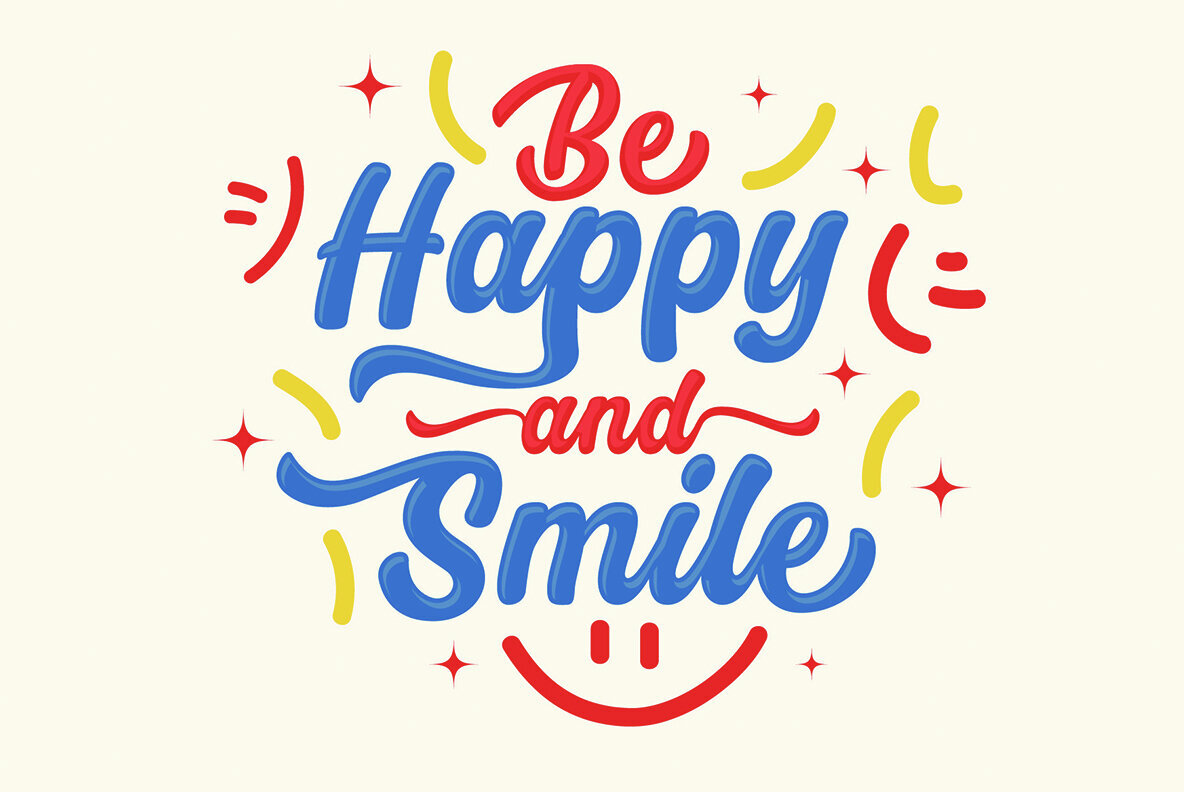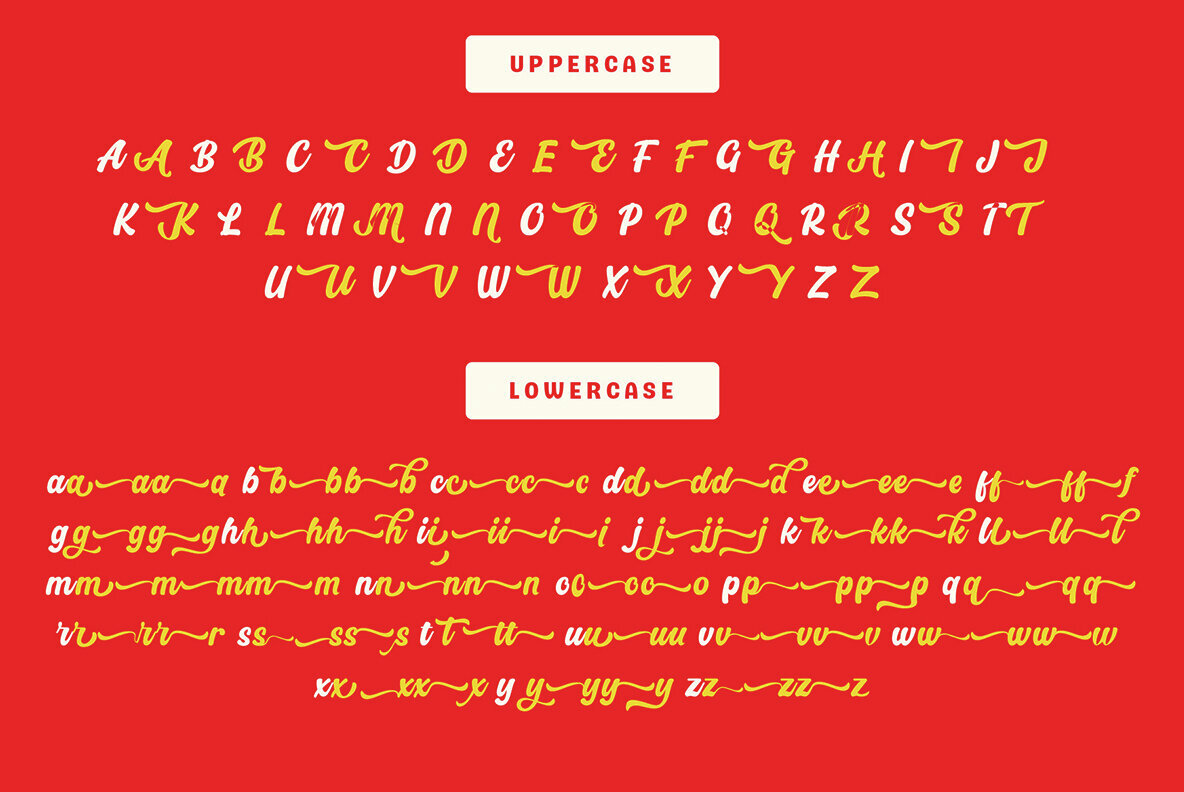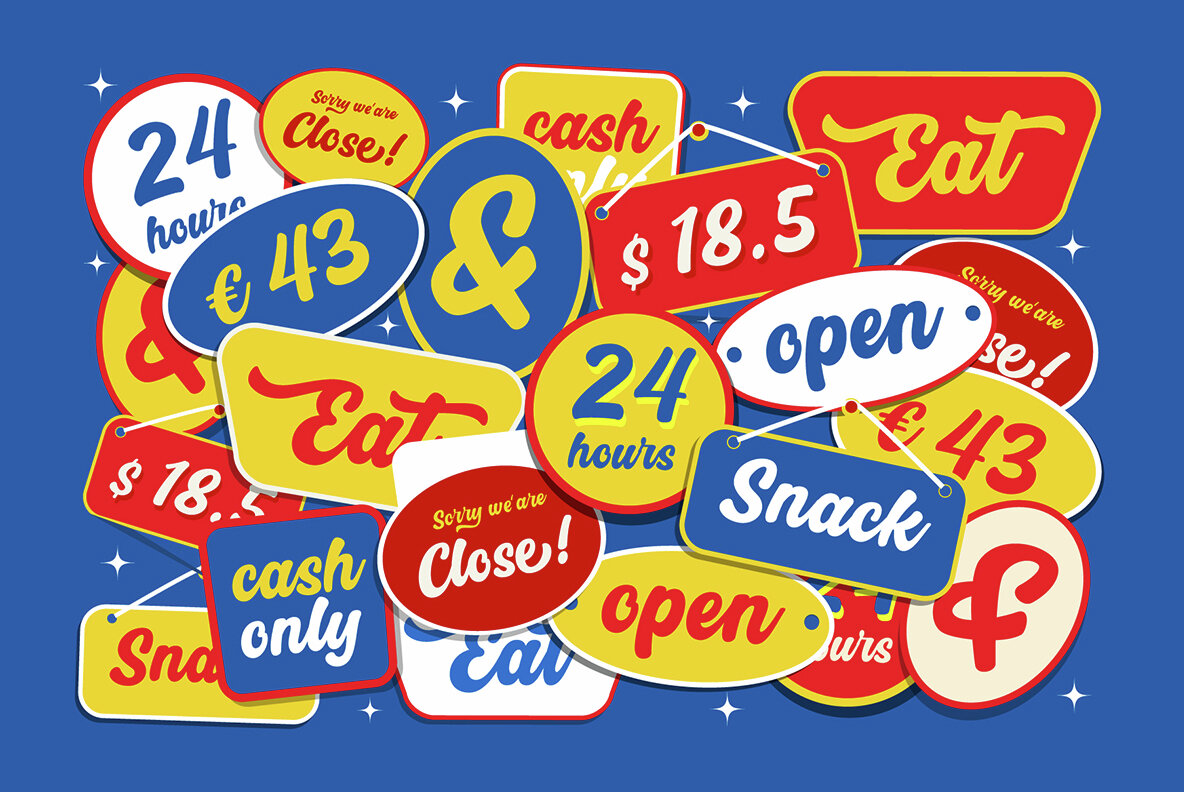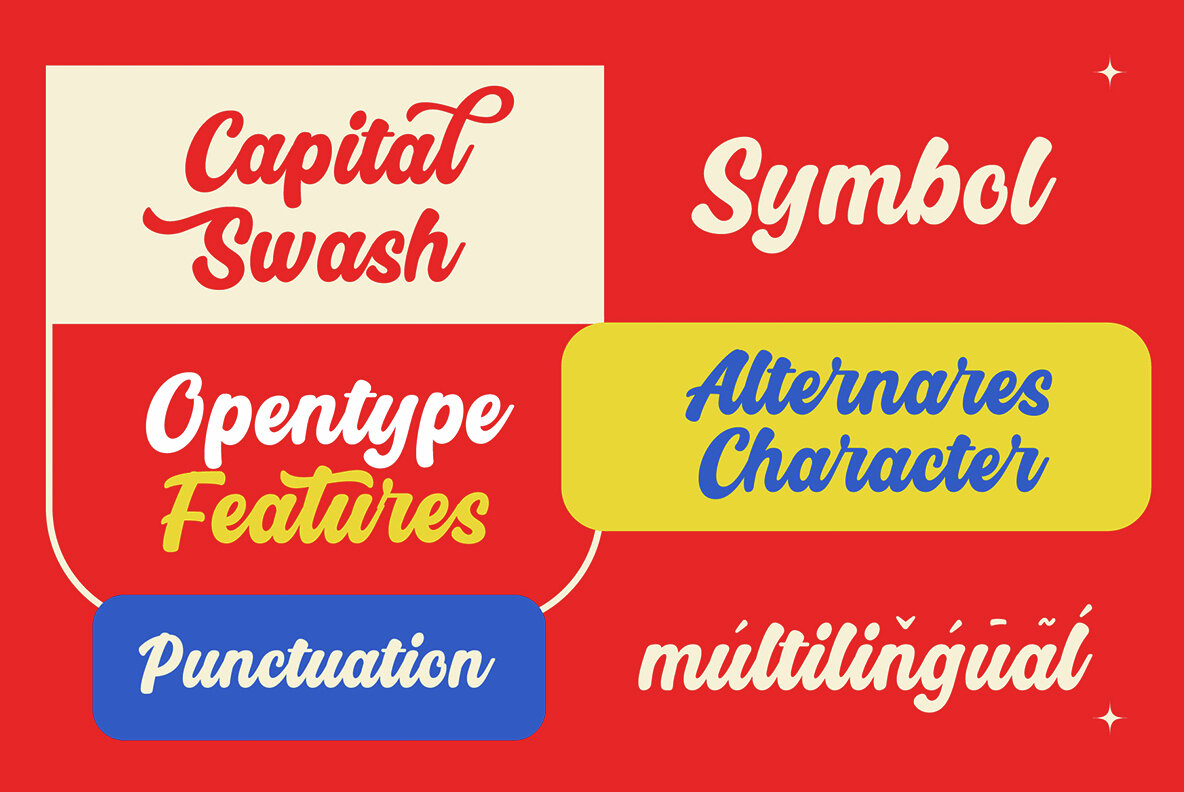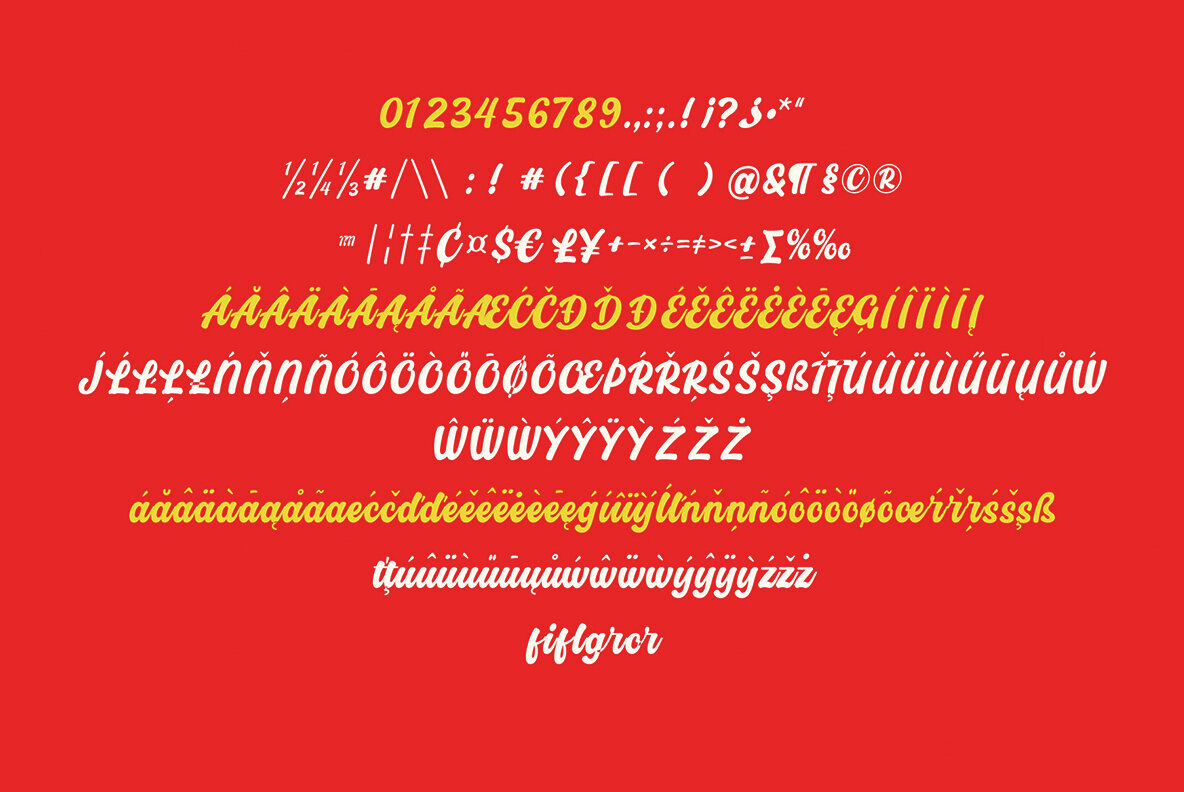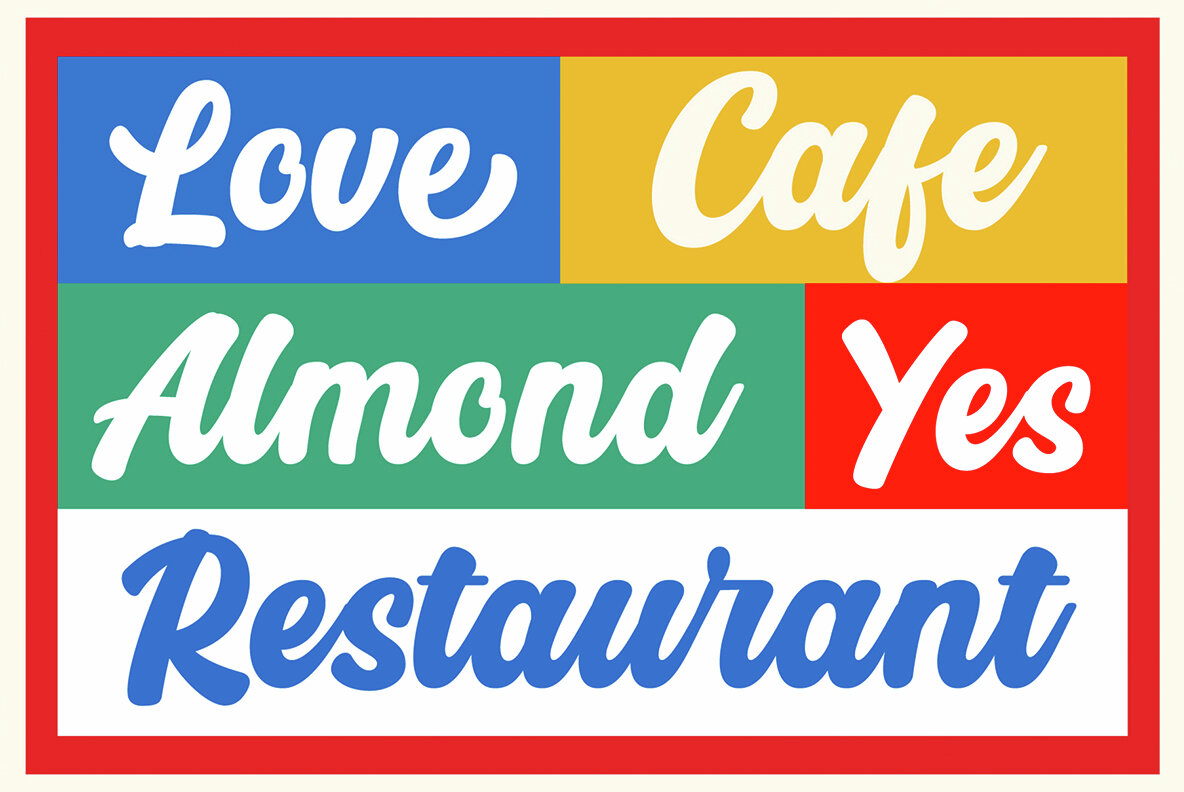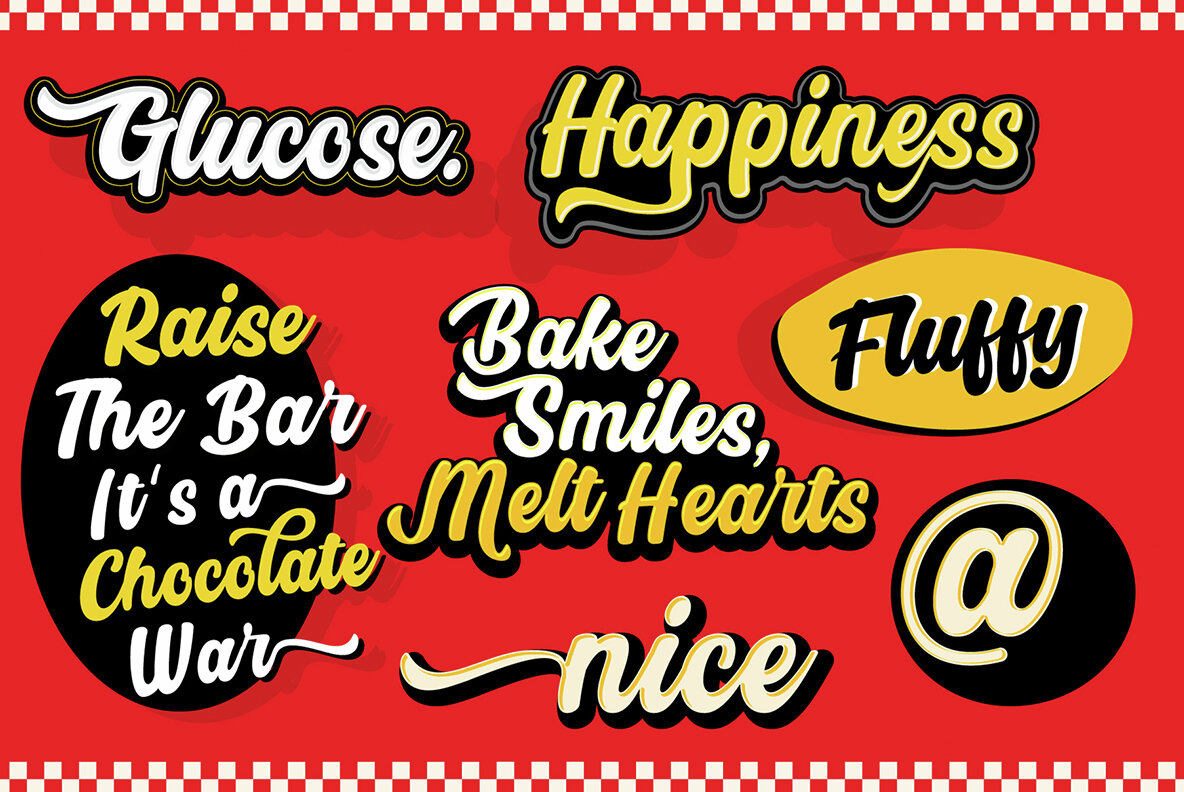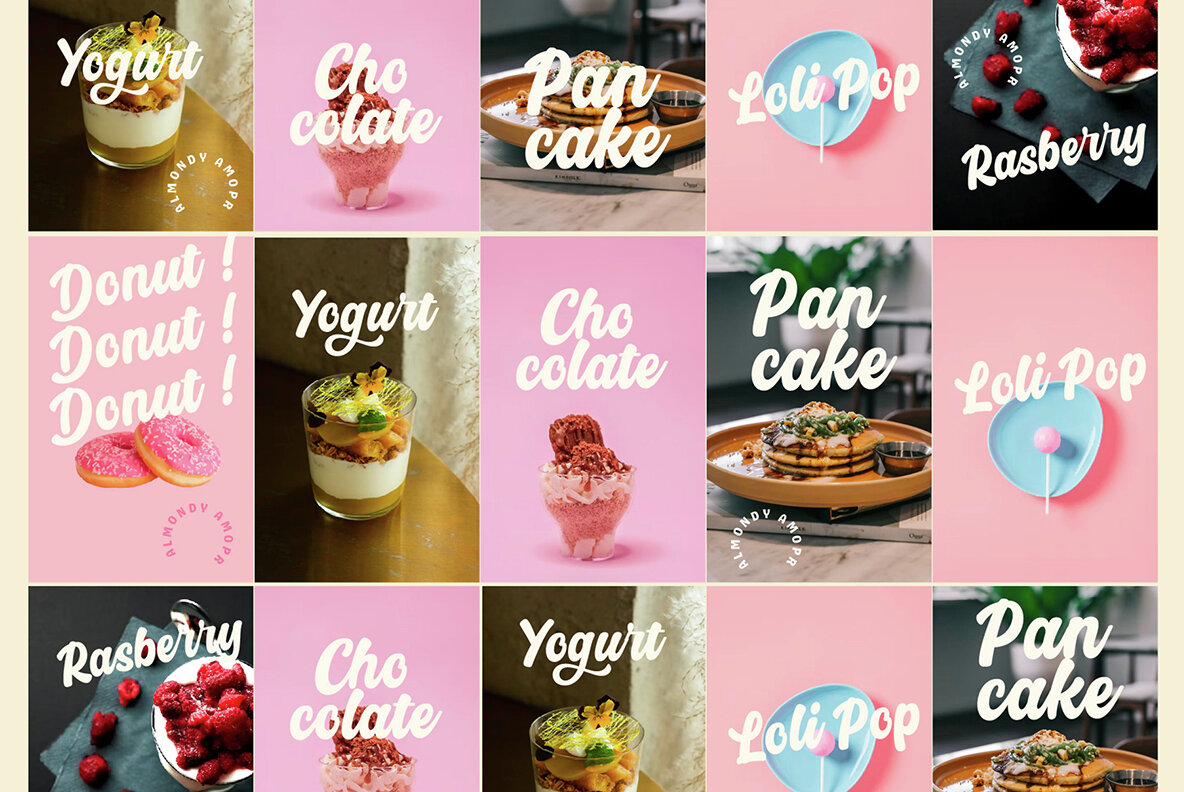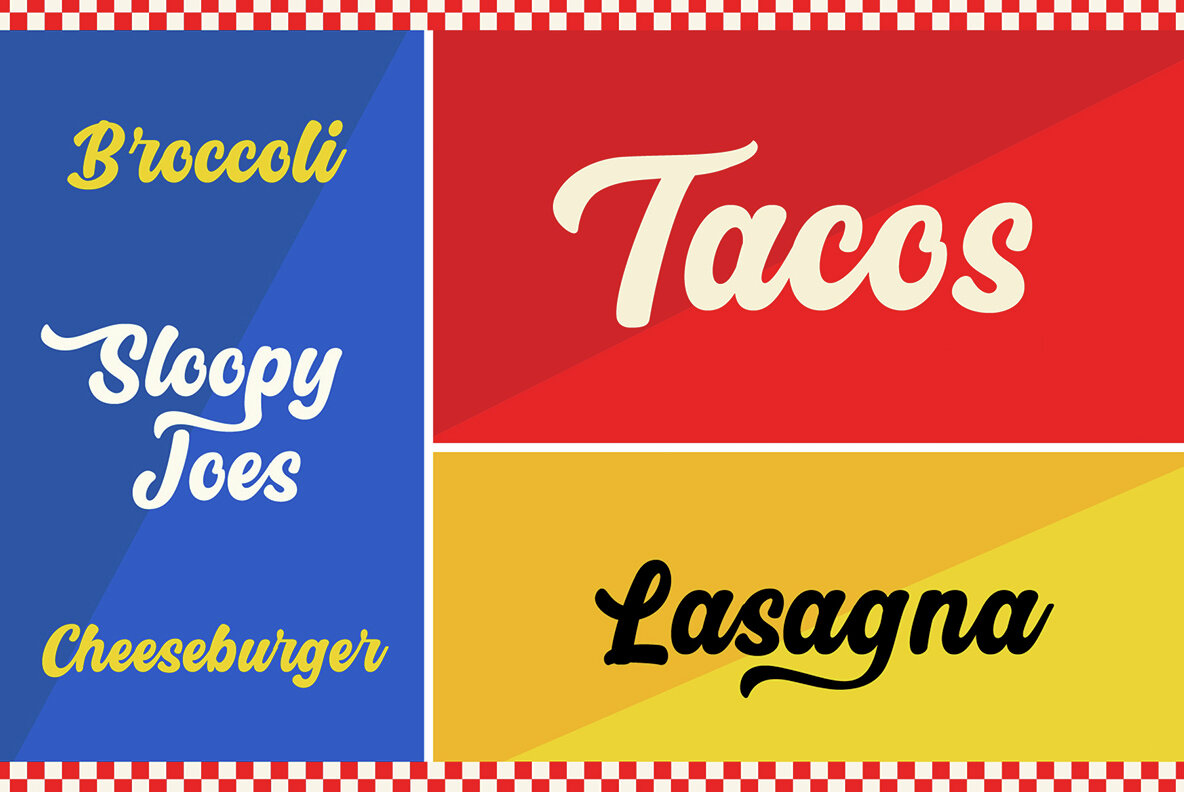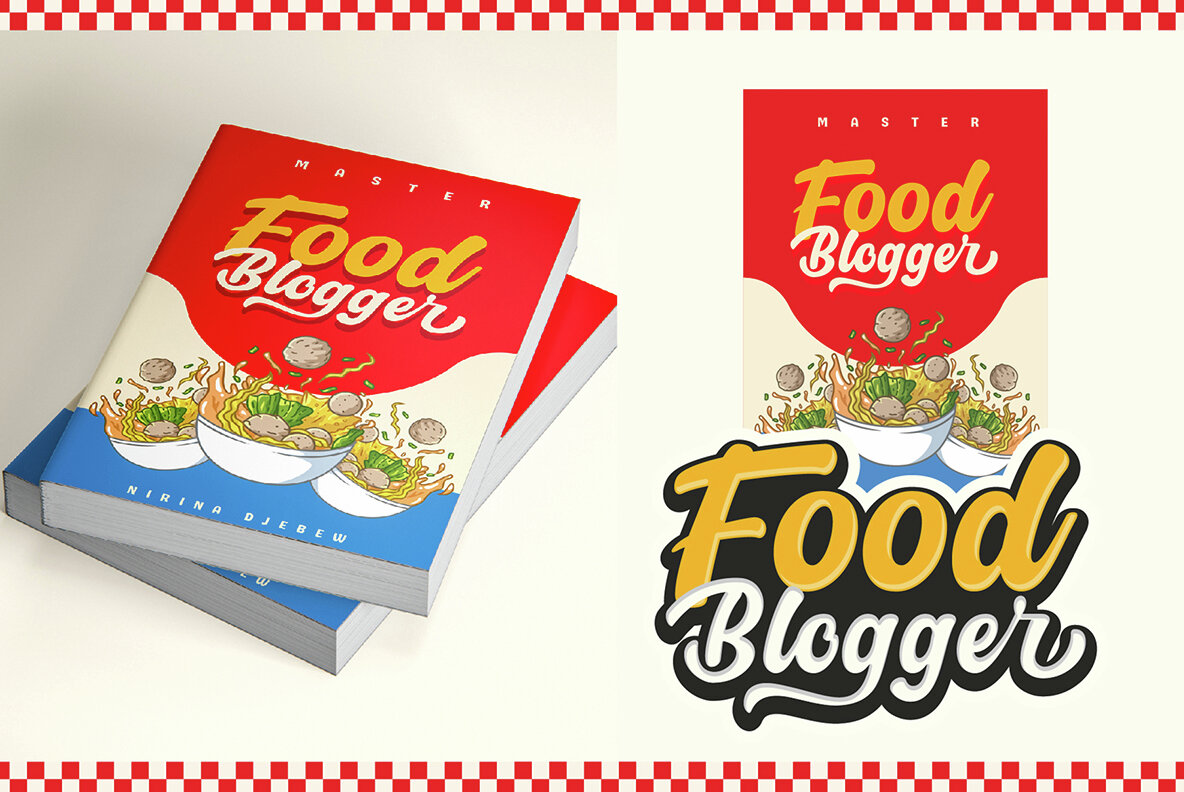
Almondy Amor Font
Almondy Amor Script
Almondy Amor Script is a meticulously crafted typeface inspired by a variety of influences, focusing primarily on desserts and beverages. The design of this font embodies versatility, fun, and beauty, making it an ideal choice for projects requiring a charming and expressive touch. Almondy Amor is perfect for a multitude of design projects, including:Almondy Amor: A Playful Script Typeface